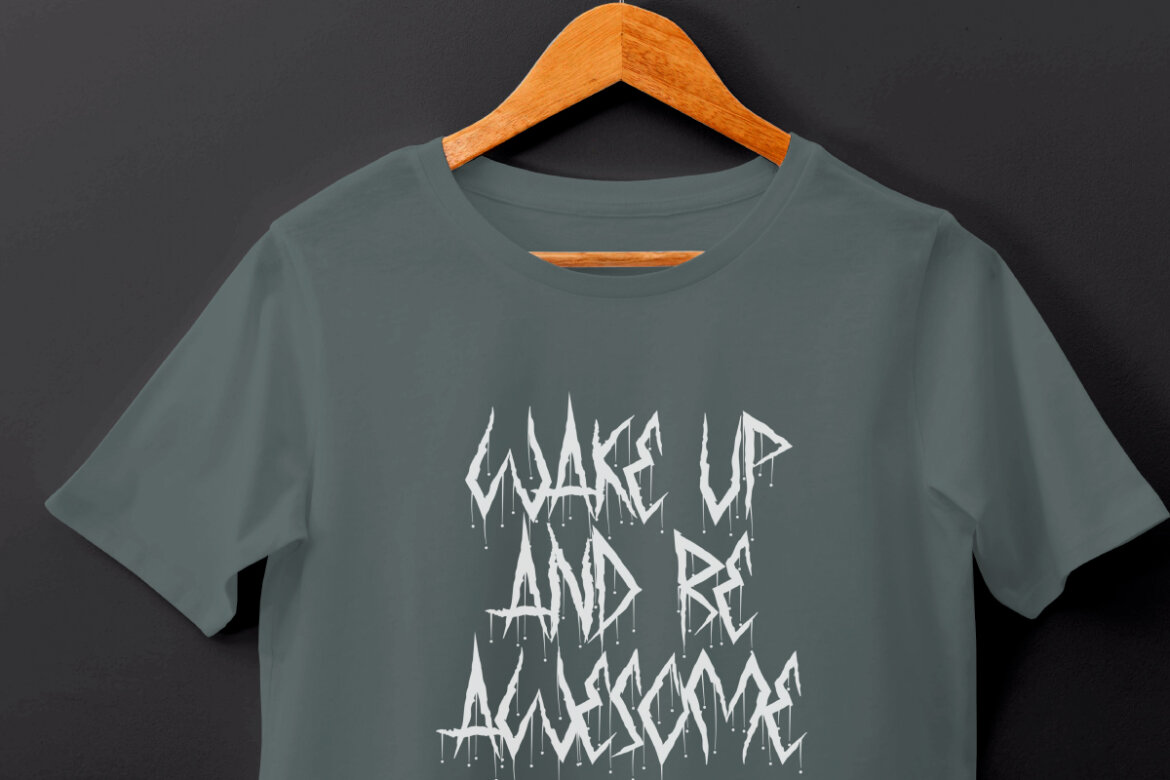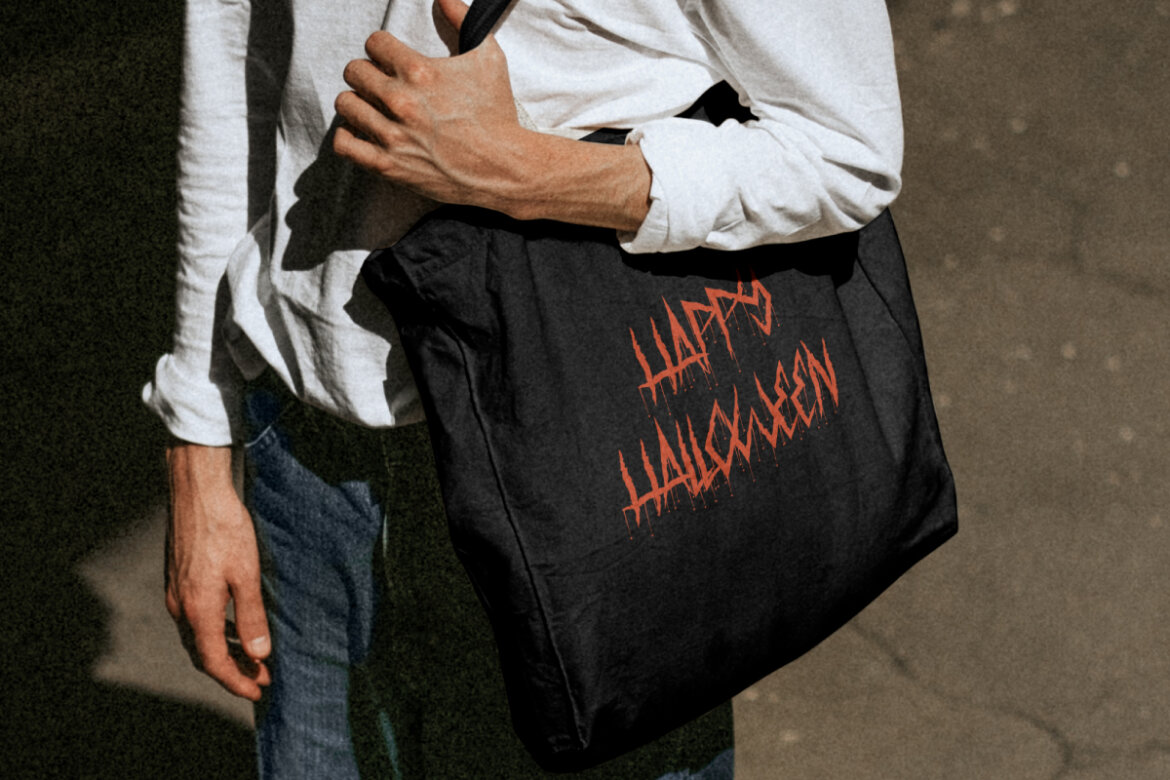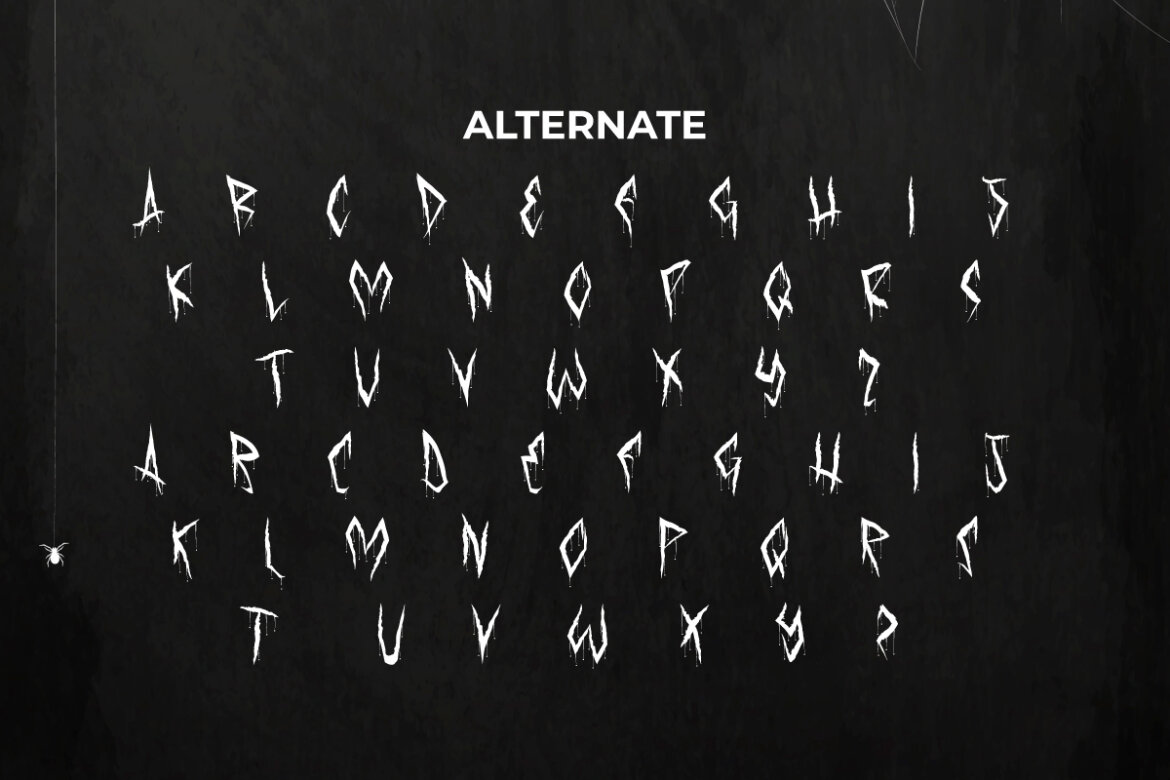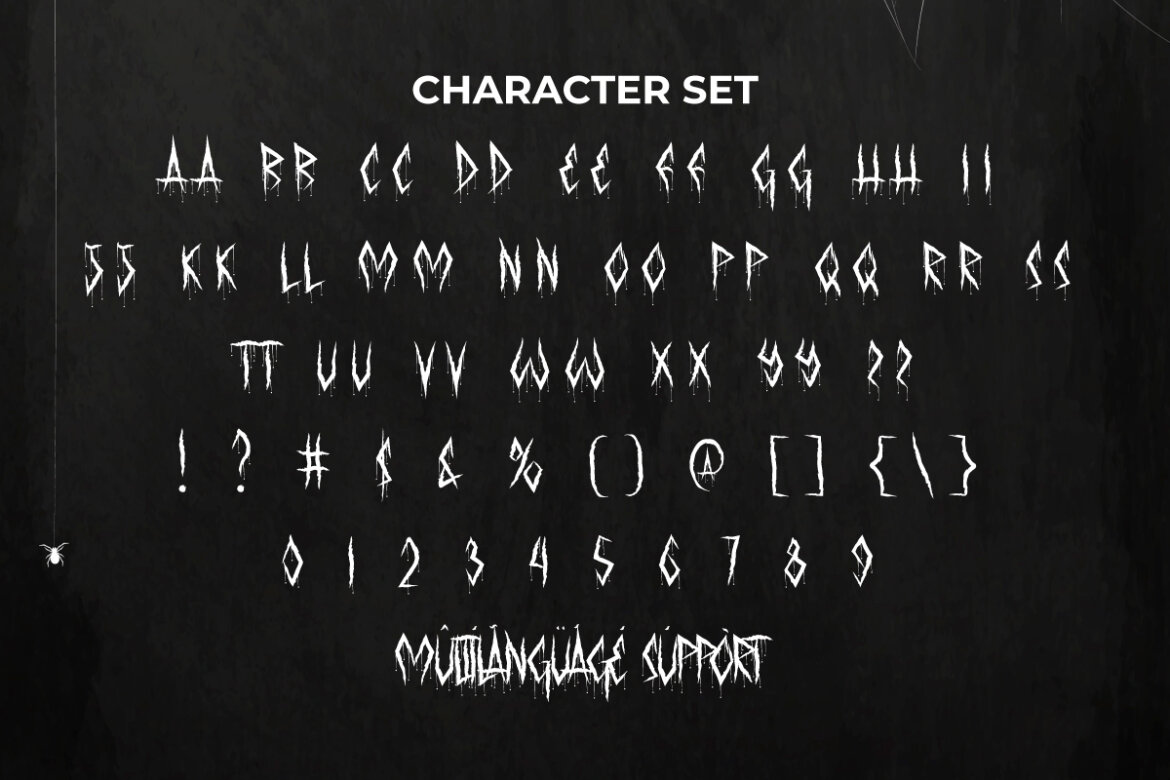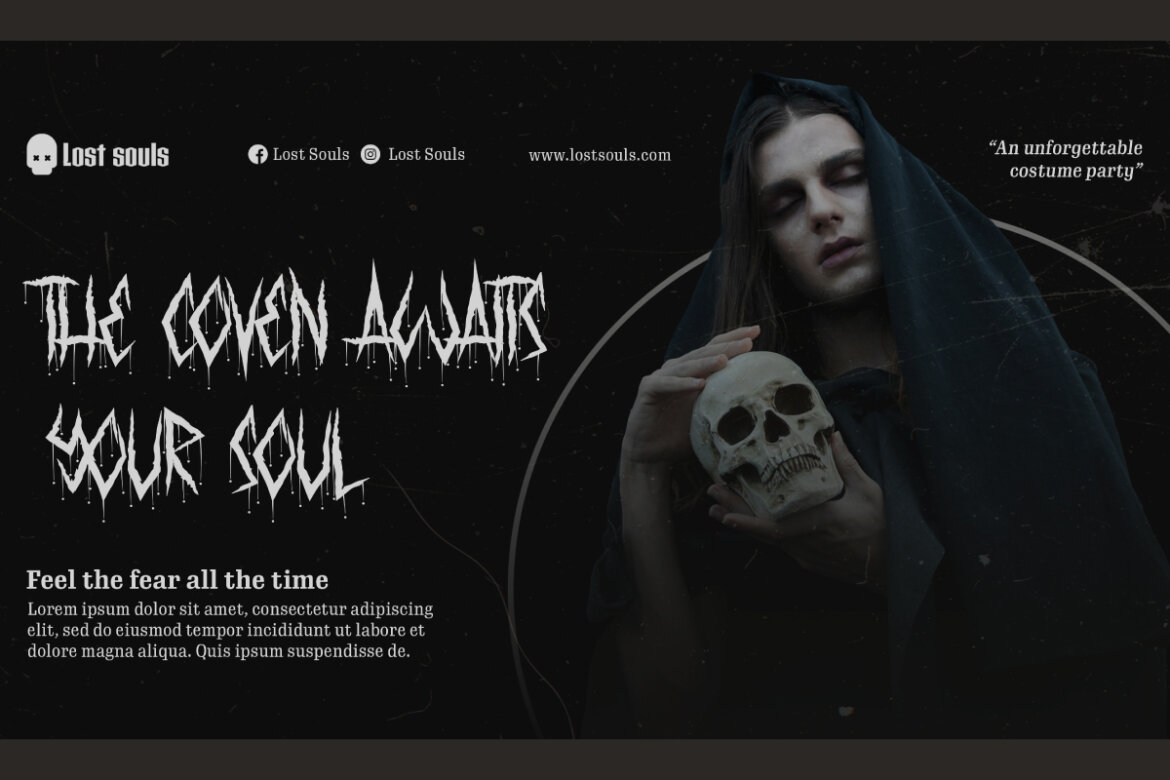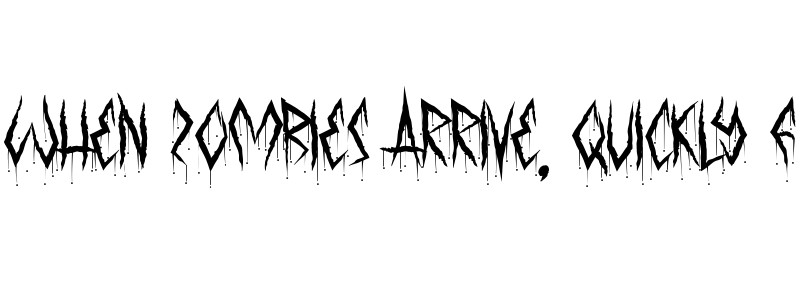
Unswear FREE Font
Unswear Font is a hardcore black metal horror mysterious display font with an overriding impression. This font has a letter design that is often sharp, harsh brush selection with distinct drops of blood around it to symbolize the intensity of power and an aggressive feel. It works great in album artwork or cover, billboard, branding logos, headers, labels, print on fabrics, posters, promotional materials, title, websites, and any design that requires a touch of the death metal style.
Unswear Font includes a complete basic set in ALL CAPS for both uppercase and lowercase letters, Numbers, Punctuation and Symbols. It also includes optional Alternates to add visual value to font. This is clearly different from blackletter because the letters are not gothic, but they are both able to convey an aura of mysticism and brutality, so this type perfectly conveys the atmosphere of black metal culture. Perfect for clothing brand, Halloween, fashion, film, game, graphic design, metal concerts, etc.
Unswear Font also supports multilingual characters which are ready to use either on Windows or Mac machines with a simple installation. Combine different characters for a bespoke, handcrafted feel. To access the alternate glyphs, you need a program that supports OpenType features. It’s tested to work well in the Adobe Apps (Illustrator, Adobe InDesign, Adobe Photoshop) even work on Microsoft Word. All of these characters are available through the glyph panel, moreover each letter has its own unicode (PUA) so you can access all the characters easily.